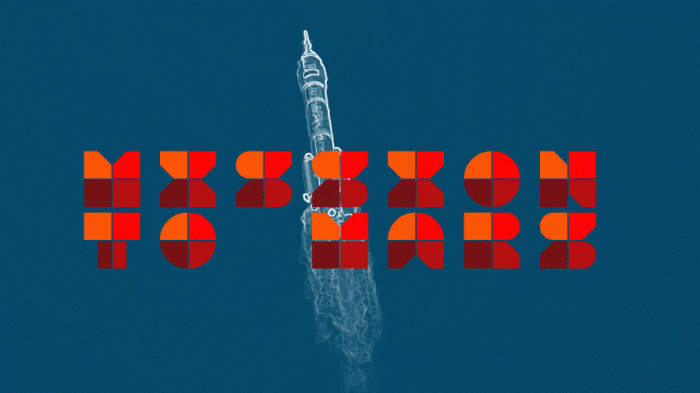
Mission to Mars
Earth's celestial neighbor, Mars is the fourth planet in the solar system. The presence of iron oxide, or rust, gives Mars its characteristic red hue and its nickname the "Red Planet". Mars has two moons, Phobos and Deimos, named after the Greek gods of fear and dread respectively while Mars takes its name from the Roman god of war.
A simple red monospaced typeface with a little bit of old school sci-fi flair.
A good combination of bold shapes and an effective colour palette. You could flip Z horizontally.
Thank you for the suggestion four! You were right, it looks much better that way.